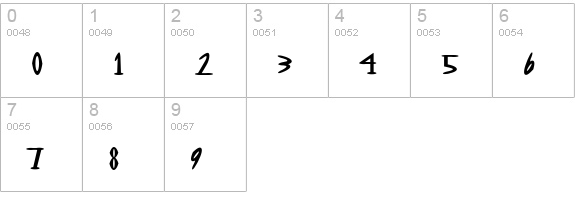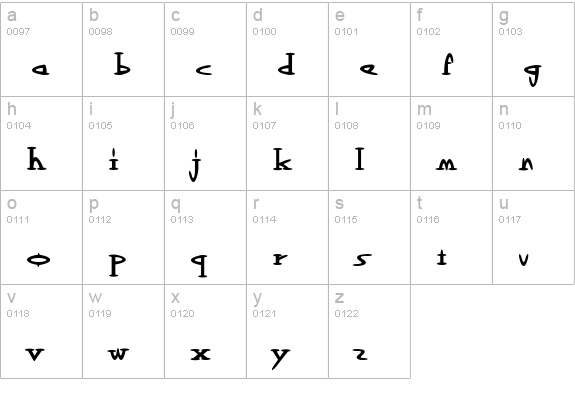
OutwestDark is a bold and rugged font that captures the essence of the untamed wilderness of the American West. Its strong and angular letterforms evoke a sense of adventure and exploration, making it perfect for outdoor-themed designs and projects. The unique design of OutwestDark sets it apart from other fonts, giving your text a distinct and eye-catching appearance. Best of all, OutwestDark is available for free download at FontsMarket.com. This means you can easily add this striking font to your collection without any cost, making it a valuable resource for any designer or creative individual. Don't miss out on the opportunity to enhance your projects with the bold and adventurous style of OutwestDark. Download it today and let your creativity run wild!